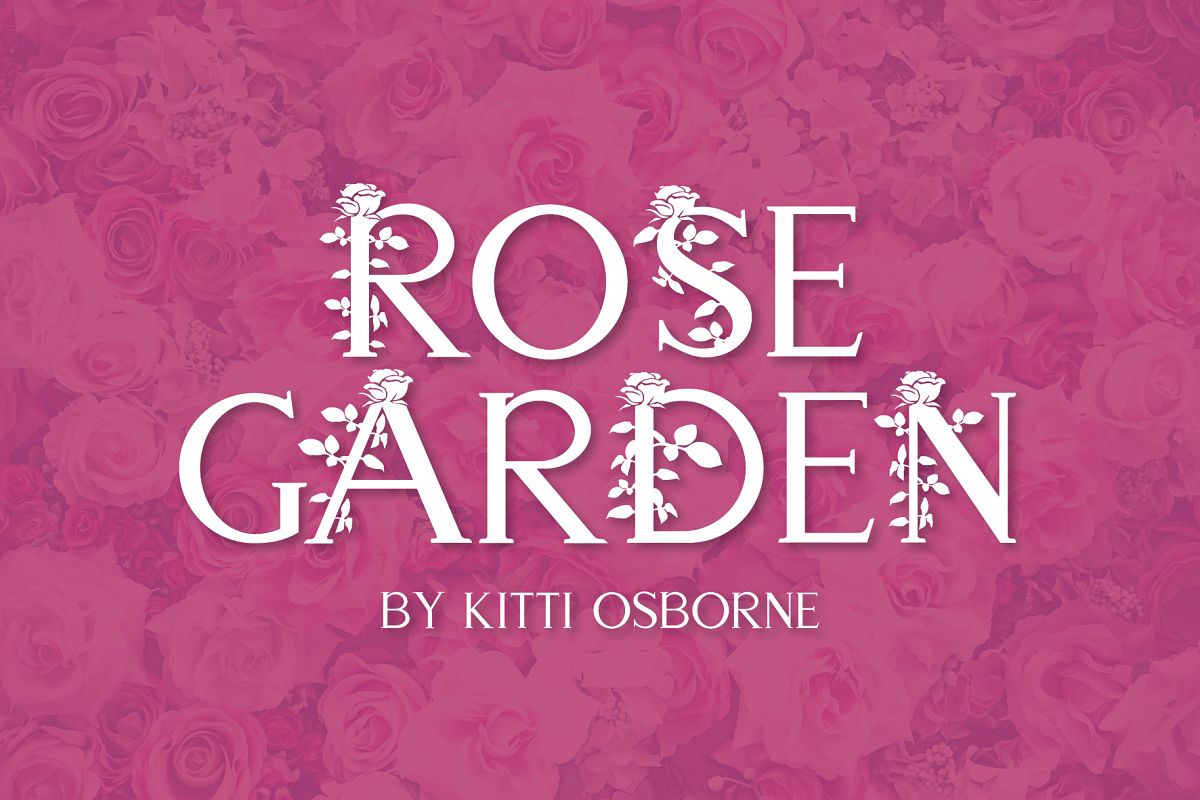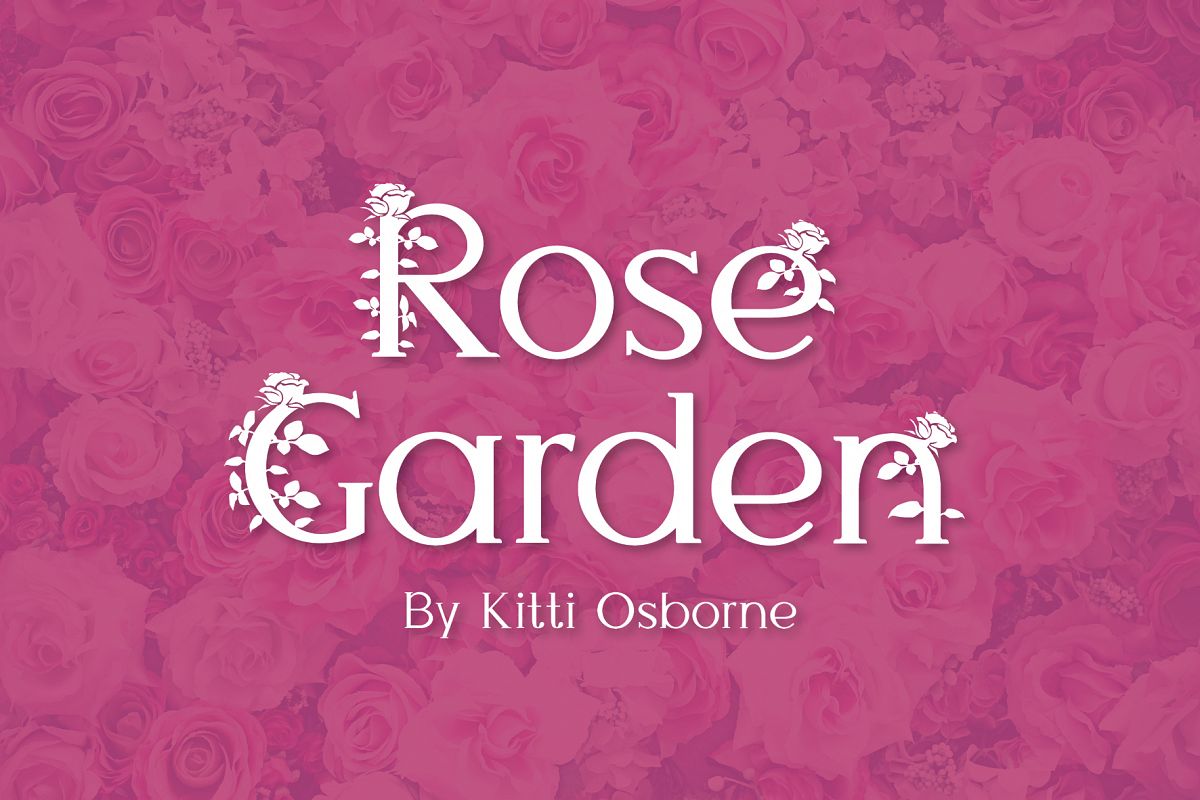
Welcome to my Rose Garden, a fun display font perfect for crafting in OTF format.
Rose Garden is an elegant, decorative, feminine font with roses and foliage. With an embellished floral upper/lowercase font and a plain upper/lowercase font, this font is ideal for your wedding monograms and logos. Use this font for wedding invitations, branding, packaging, magazines, florist shops, social media, restaurant menus, greeting cards, headers and many more.